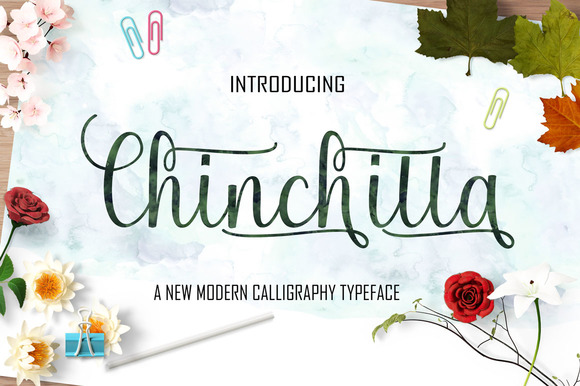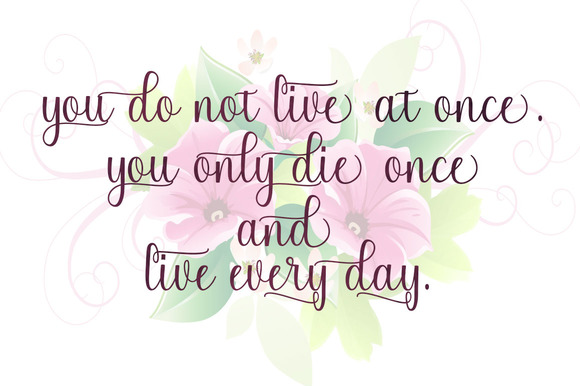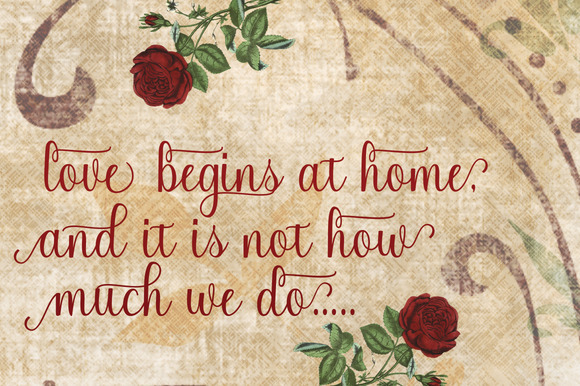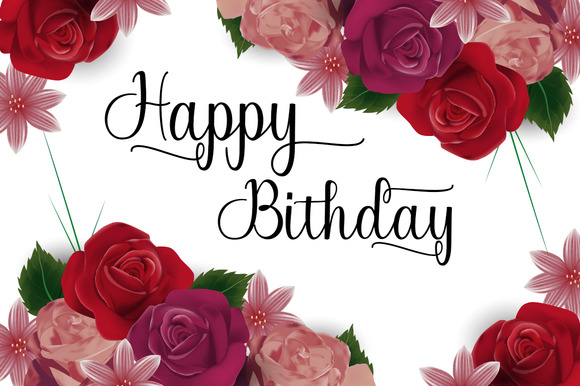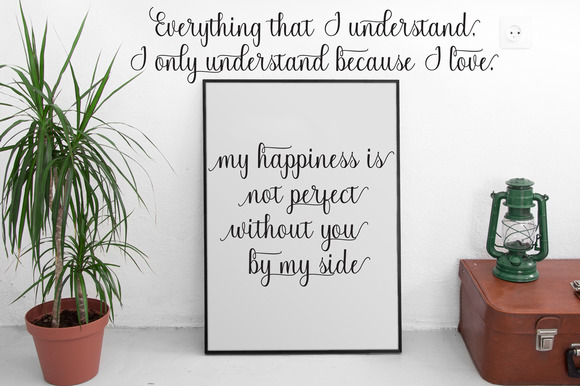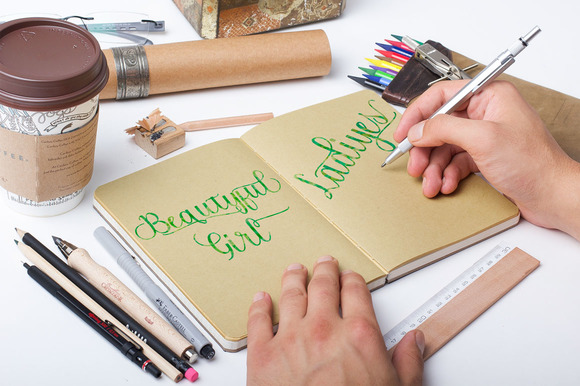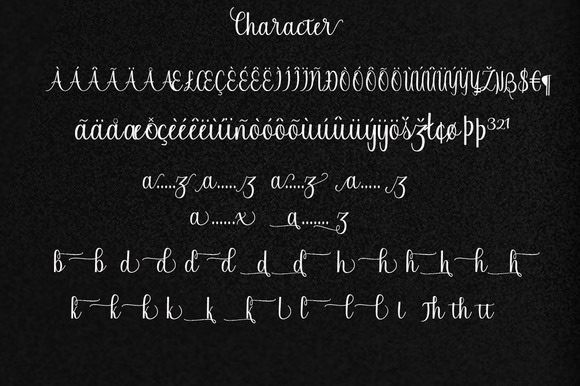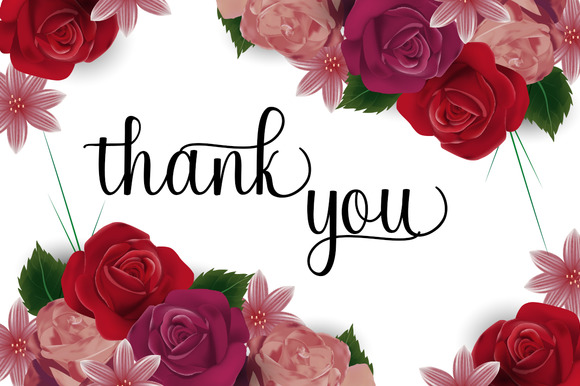
HomeScript FontsChinchilla Font Script Fonts Chinchilla Font FacebookXPinterestWhatsApp Chinchilla Font Poster 2 Chinchilla Font Poster 3 Chinchilla Font Poster 4 Chinchilla Font Poster 5 Chinchilla Font Poster 6 Chinchilla Font Poster 7 Chinchilla Font Poster 8 About Chinchilla Font Chinchilla is a smooth luxury-looking handmade font. DOWNLOAD NOW People also explored Maharani Font Pakky Standy Font Welinside Font Cogito Font Snoozefest Font Cylindrica Font Chalkwrite Font Evarin Font Ramona Kiev Font 293 0 TagsChinchilla Font Previous articleSnapdragon FontNext articleAnteater Font LEAVE A REPLY Cancel reply Comment: Please enter your comment! Name:* Please enter your name here Email:* You have entered an incorrect email address! Please enter your email address here Website: Save my name, email, and website in this browser for the next time I comment. Personal Use Free Shawaki Personal Use Free Read more about this font Love Memories Personal Use Free Read more about this font Machine House Personal Use Free Read more about this font Metal Lord Personal Use Free Read more about this font BLOG Where to Buy American Fonts Online in 2024 Where to Buy American Fonts Online: The Ultimate Guide for 2024 Looking for the perfect American font to elevate your design projects? You're in the... Best Fonts for T-Shirt Design – Top 2025 Picks How to Cut Any Font on Cricut: Convert a Font to SVG (Free) Transform Your Website: Elevate Your Typography with 7 Best Web Font Generators